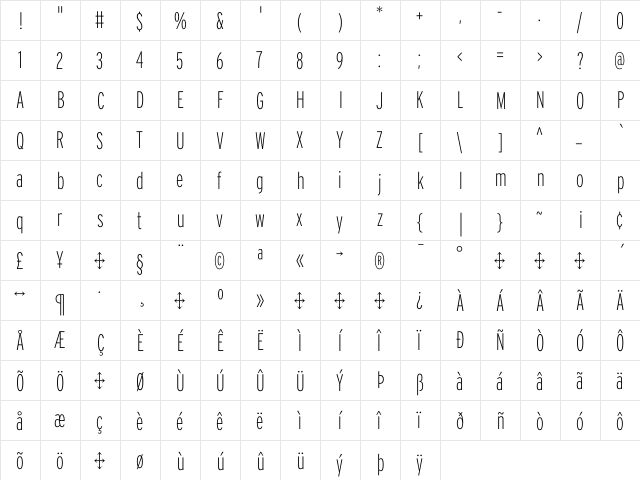
Interstate ExtraLight Comp Font Preview
Interstate ExtraLight Comp
Design Context for Interstate Typeface
Interstate is a composed and adaptable typeface that performs quietly and consistently across a wide range of design contexts. The delicate stroke weight brings airiness and refinement to layouts.
Pro Tip: Use Interstate in both headline and body roles to test its range before committing to a single application.